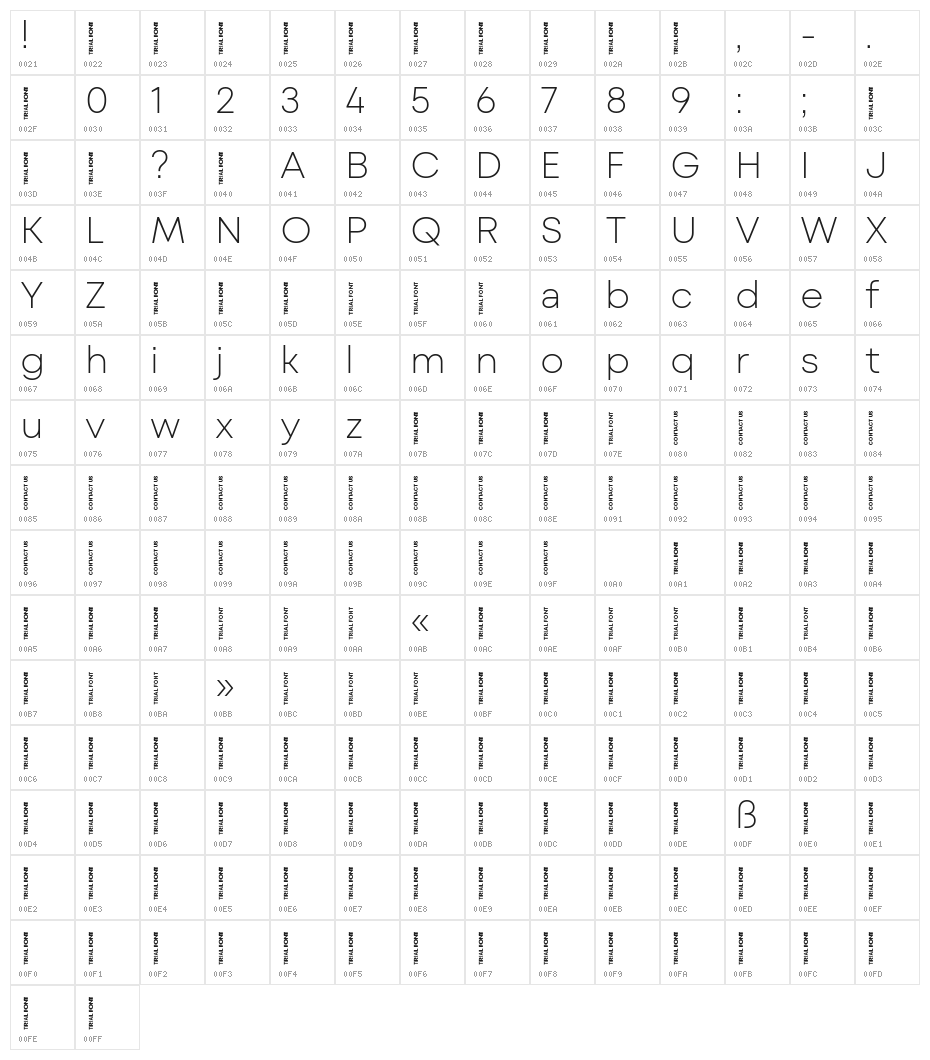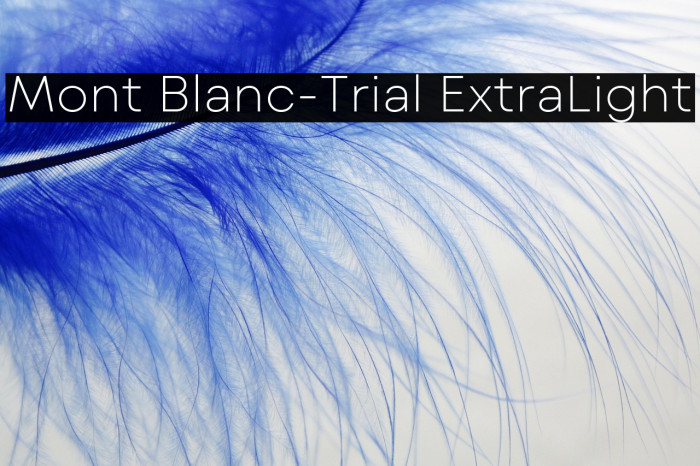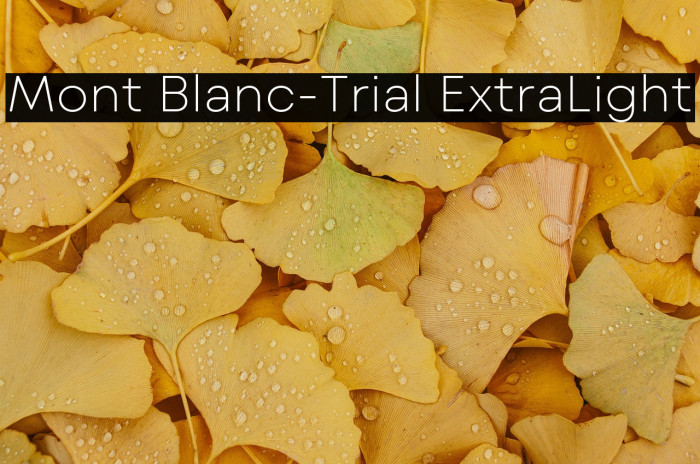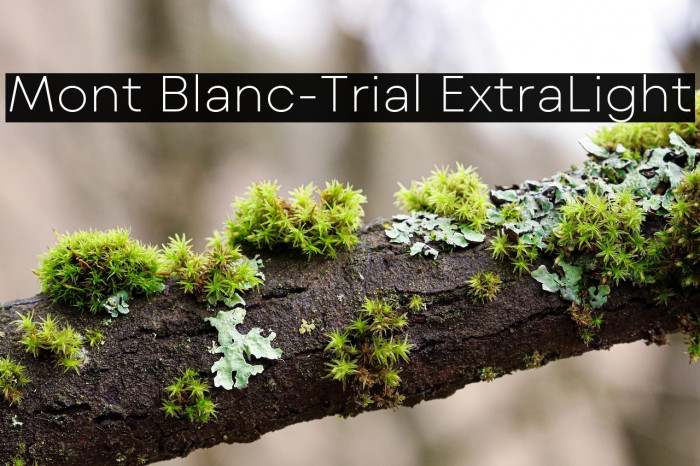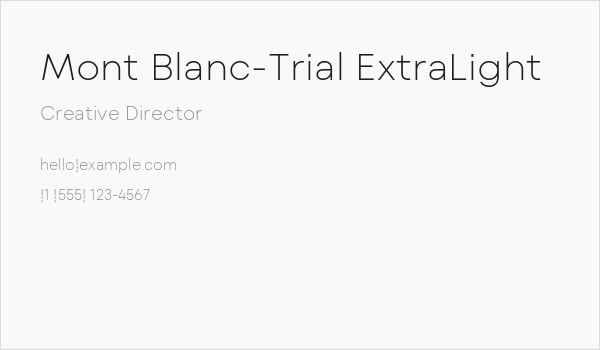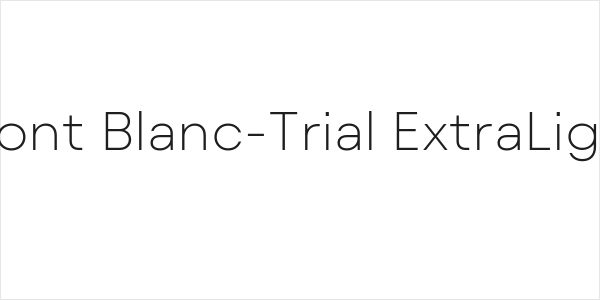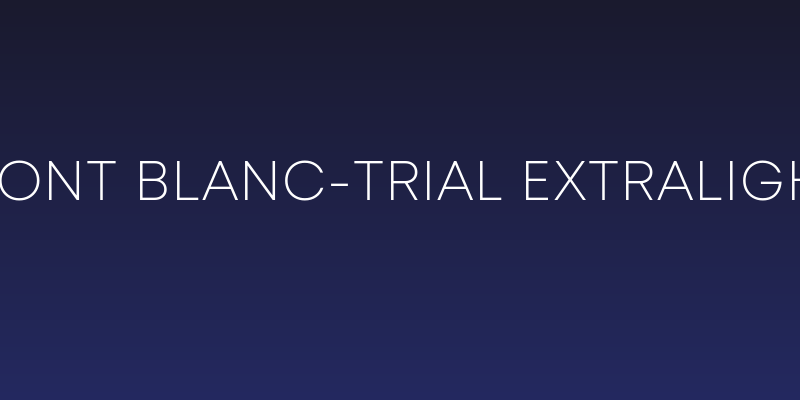
Mont Blanc-Trial ExtraLight Font
Mont Blanc-Trial ExtraLight Description
This font exhibits a clean and minimalist design, characterized by its thin, uniform strokes and modern aesthetic. The characters are evenly spaced, providing a sense of balance and clarity. The uppercase letters are tall and elegant, while the lowercase letters maintain a consistent height, enhancing readability. The numerals are straightforward and align well with the overall style, making them suitable for various applications. The special characters are simple yet effective, complementing the font's sleek appearance. This font is ideal for projects that require a contemporary and professional look.
| Proposed Projects | Ideal for branding, corporate materials, web design, and editorial layouts. |